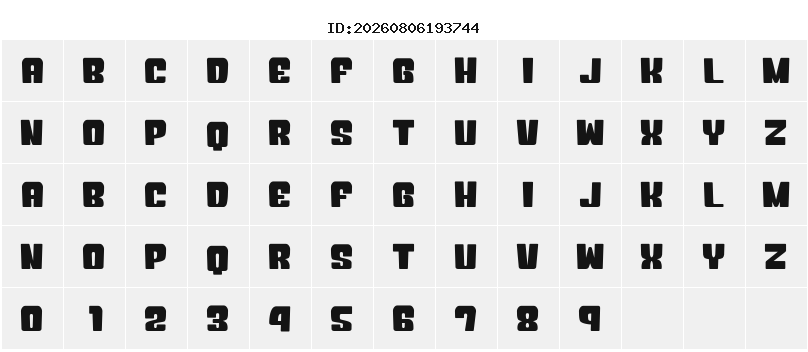
Okuba Cloud__G Preview
• Font Name: Okuba Cloud__G
• Full Font Name: Okuba Cloud__G
About Okuba Cloud__G.ttf
Okuba Cloud__G.ttf is a modern, elegant sans-serif font designed for ultimate readability and visual harmony. Perfect for branding, headlines, web design, and print materials.